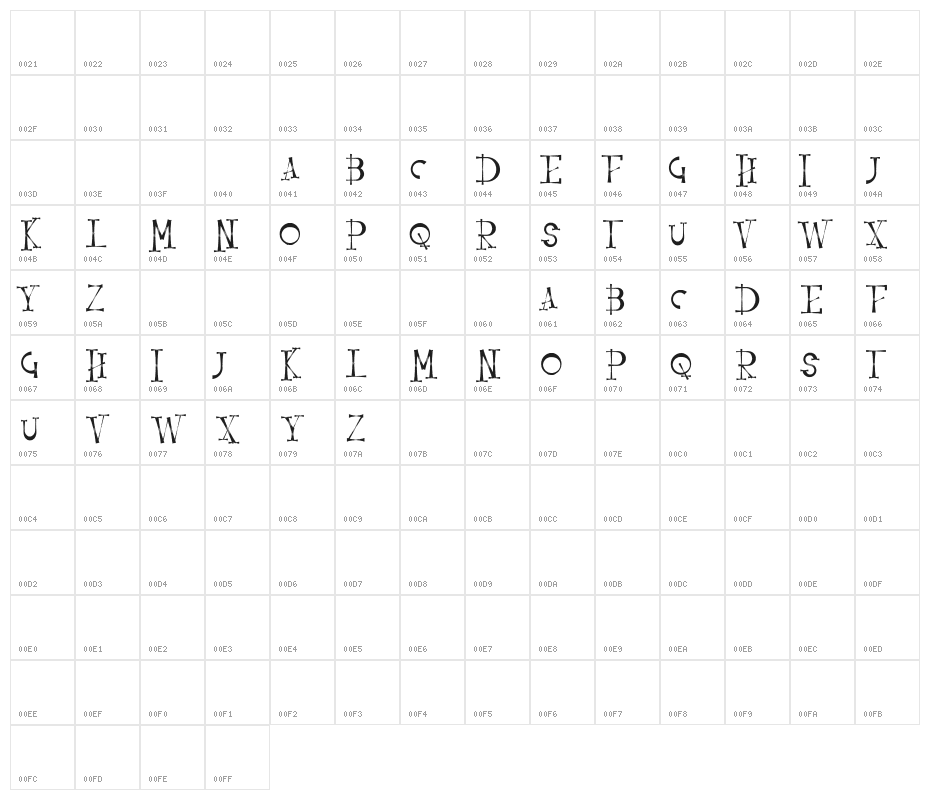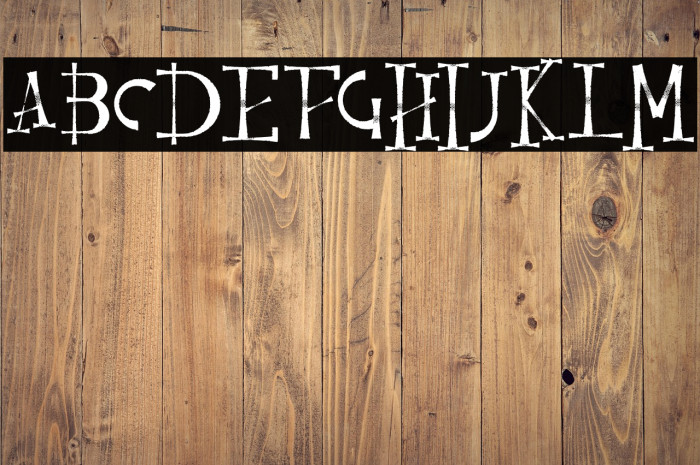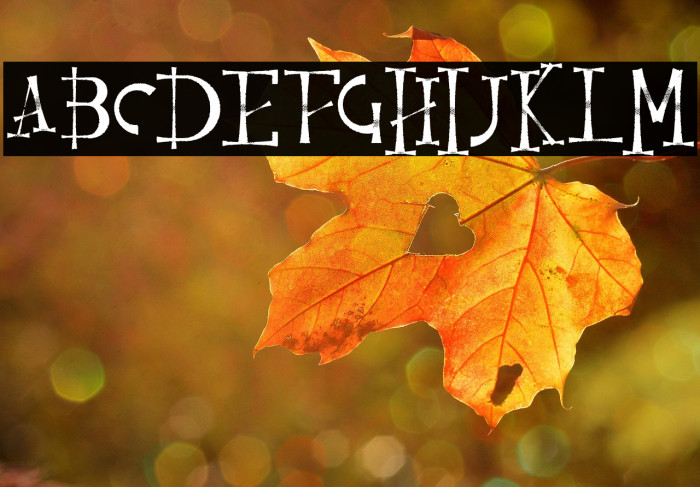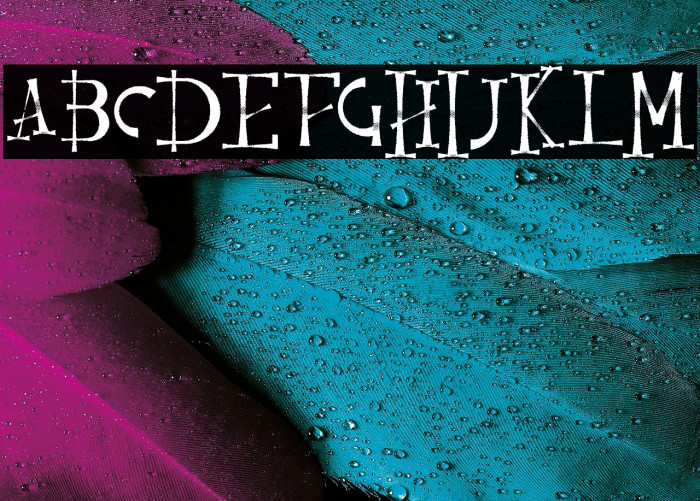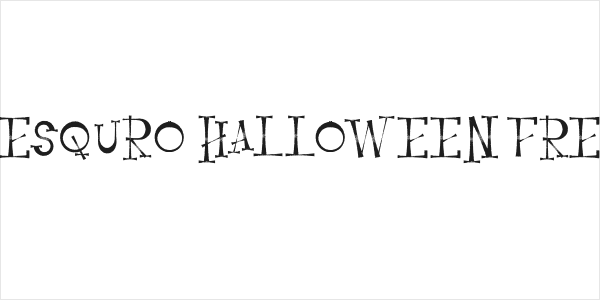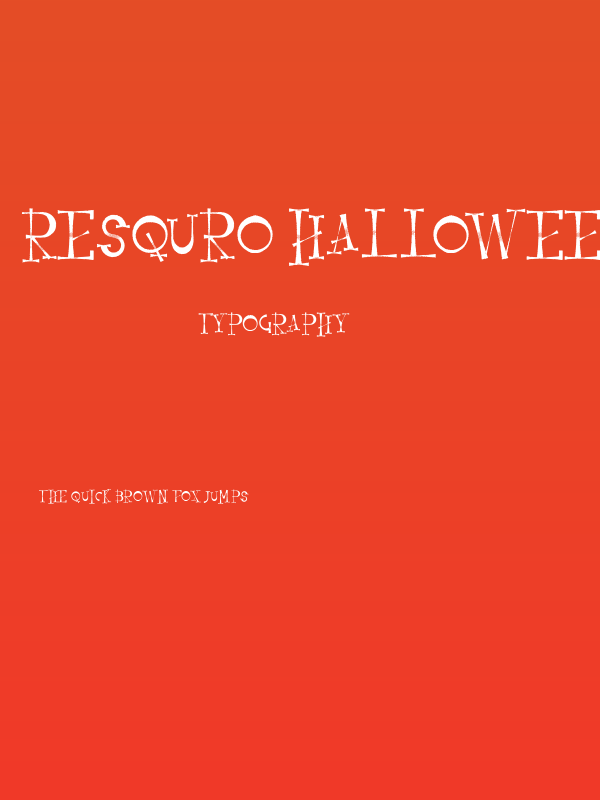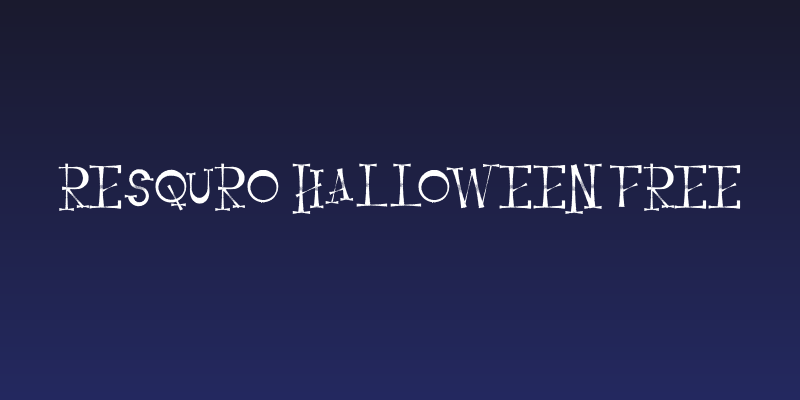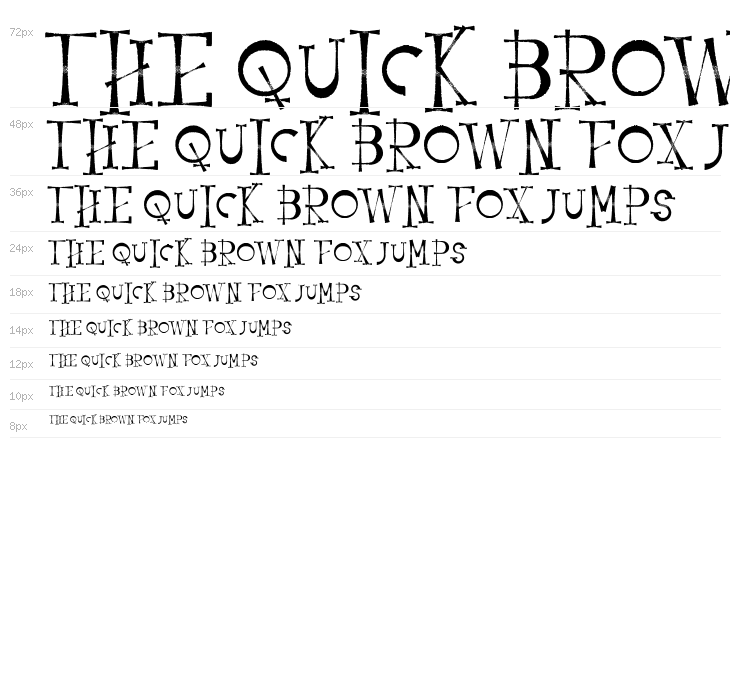
Resquro Halloween FREE Font
Resquro Halloween FREE Description
This font features a playful and spooky design, perfect for Halloween-themed projects. The characters are crafted with uneven strokes and jagged edges, giving them a hand-drawn, eerie appearance. The uppercase letters are particularly striking, with exaggerated serifs and crossbars that resemble stitches or scars, enhancing the font's creepy aesthetic. The lowercase letters maintain the same whimsical style, ensuring consistency throughout. The numbers and special characters are equally distinctive, making this font versatile for various creative uses.
| Proposed Projects | Ideal for Halloween invitations, themed posters, party decorations, and horror-themed graphics. |